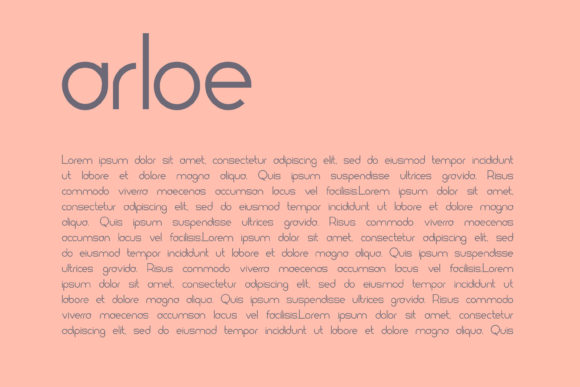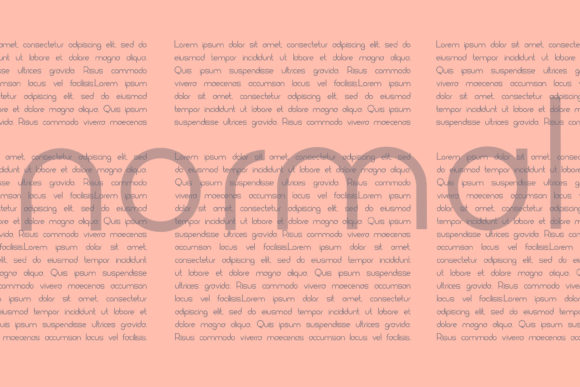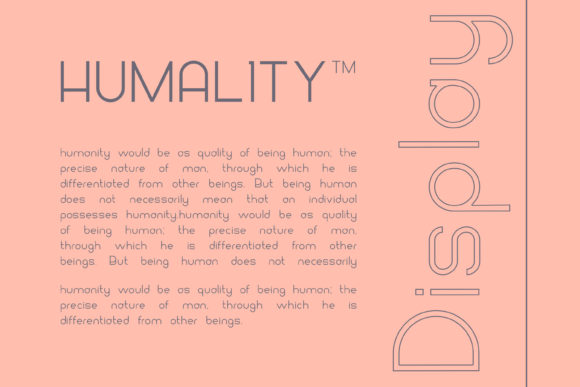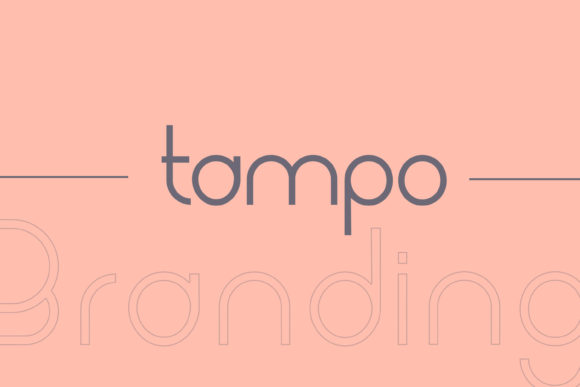
Cabinor Font: Elevate Your Designs with a Modern Sans Serif
In the world of typography, fonts play a crucial role in shaping the visual identity of a project. For designers and crafters, finding the perfect font can be a daunting task. However, if you’re looking for a modern and simple lettered sans serif font that can elevate your creative ideas, look no further than Cabinor Font. In this article, we’ll explore the features and benefits of Cabinor Font, and how it can make your projects stand out.
What is Cabinor Font?
Cabinor Font is a modern sans serif font that boasts a clean and simple design. Its lettering style is perfect for a wide range of projects, from digital designs to print materials. The font’s simplicity makes it highly versatile, allowing it to be paired with various design elements to create a unique visual identity.
Key Features of Cabinor Font
- Modern and Simple Design: Cabinor Font features a sleek and contemporary design that will add a touch of sophistication to your projects.
- Sans Serif Style: The font’s sans serif style makes it perfect for digital designs, as it remains clear and legible even at small sizes.
- Highly Versatile: Cabinor Font can be used in a wide range of projects, from branding and advertising to packaging and web design.
- Easily Readable: The font’s clean design ensures that it is easily readable, making it perfect for body text and headings.
Benefits of Using Cabinor Font
Cabinor Font offers several benefits that make it an excellent choice for designers and crafters. Some of the benefits include:
- Unique Visual Identity: Cabinor Font can help you create a unique visual identity for your project, setting it apart from others.
- Improved Readability: The font’s clean design ensures that your text is easily readable, making it perfect for body text and headings.
- Flexibility: Cabinor Font can be used in a wide range of projects, making it a great addition to your font library.
- Easy to Pair: The font’s simplicity makes it easy to pair with other design elements, such as images and graphics.
How to Use Cabinor Font in Your Designs
Using Cabinor Font in your designs is easy. Here are a few tips to get you started:
- Pair it with Bold Colors: Pair Cabinor Font with bold colors to create a striking visual identity.
- Use it for Headings and Body Text: Use Cabinor Font for both headings and body text to create a cohesive look.
- Experiment with Different Sizes: Experiment with different font sizes to create visual hierarchy and add emphasis to important elements.
- Add it to Your Brand Identity: Consider adding Cabinor Font to your brand identity to create a consistent visual identity across all your marketing materials.
| Font Name | Cabinor Font |
| Author | BeeType |
In conclusion, Cabinor Font is a modern and simple lettered sans serif font that can elevate your creative ideas and make your projects stand out. Its versatility, readability, and ease of use make it an excellent choice for designers and crafters. Whether you’re working on a digital design or print material, Cabinor Font is a great addition to your font library. So why not give it a try and see how it can transform your designs?